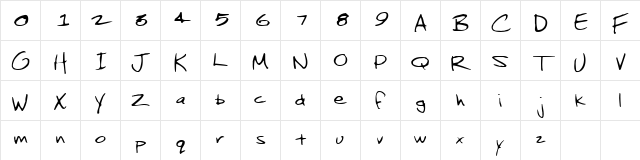
Jenkins Keepin it Real Free Font
Jenkins Keepin it Real
Style: Keepin it Real
Design Context for Jenkins
Jenkins is a composed and adaptable typeface that performs quietly and consistently across a wide range of design contexts.